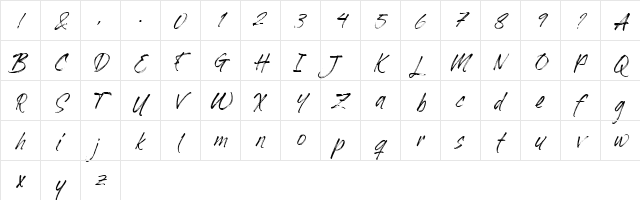
Dafiati Regular
Design Context for Dafiati Typeface
Dafiati is a composed and adaptable typeface that performs quietly and consistently across a wide range of design contexts.